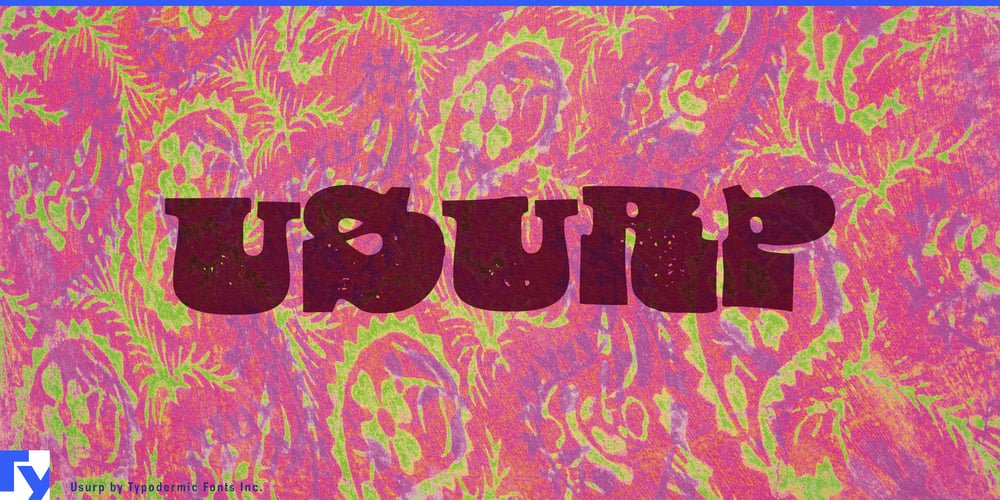
Usurp Font Family was designed by Ray Larabie and published by Typodermic. Usurp contains 1 styles and family package options. Dive into the psychedelic realm with Usurp Typeface, a bold display font that pushes the boundaries of conventional design. With its surreal cut-out letterforms and audacious slab serifs, Usurp injects a dose of hallucinogenic elegance into any project, transforming ordinary text into an extraordinary visual experience.Crafted for the modern designer with a penchant for the avant-garde, Usurp Typeface seamlessly blends playful abstraction with sophisticated typography. Its unique characters seem to float in an otherworldly dimension, challenging perceptions and captivating viewers. The interplay between negative space and solid forms creates a dynamic tension that demands attention—perfect for those looking to make a statement. Usurp’s attention to typographic detail elevates it above the typical display font. OpenType ligatures intelligently replace certain letter combinations, resulting in a more organic and cohesive appearance. This thoughtful feature ensures that your designs maintain a natural flow, even as they transport viewers to uncharted visual territories.From mind-bending concert posters and album artwork to cutting-edge brand identities, Usurp Typeface is your ticket to design that resonates on a deeper level. It speaks fluently in the language of counterculture, while still commanding respect in more mainstream applications. Usurp’s extensive language support covers a wide range of Latin-based European scripts, ensuring your trippy typography translates across borders without losing its mind-altering impact.Ready to break free from typographic conventions? Let Usurp Typeface be your creative catalyst. Get it now and watch as your designs transcend the ordinary, leaving an indelible impression on your audience.